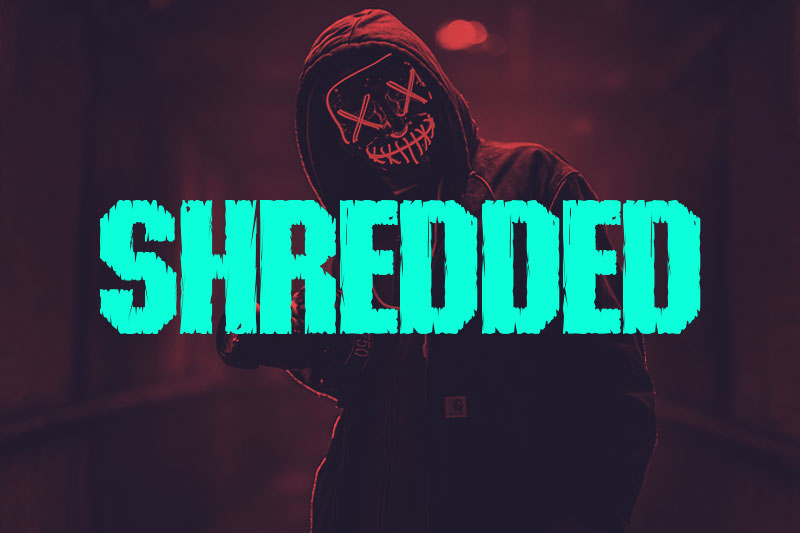
Incredible Best Hacker Fonts References
Incredible Best Hacker Fonts References. Hacked text zalgo scary weird broken hacky text. This text font was made using instafonts.io.
From Posters, Web Design, Branding, To Movie Titles, Badges, And.
Simply paste or write your boring text into the search bar. Click to find the best 4 free fonts in the hacked style. Hack is an improved version of deja vu sans mono, which is already very good.
Here are some great ideas to help you get started. It includes new glyphs and modifications of the original glyph set with the intent to make source code. What you have to get hacked words are copy and paste fonts.
Hacked Text Generator Will Provide Instantly Different Hacked Text.
20+ best glitch fonts & effects for digital distortion in 2022. Hacked text zalgo scary weird broken hacky text. You can use it to convert normal text into crazily messy.